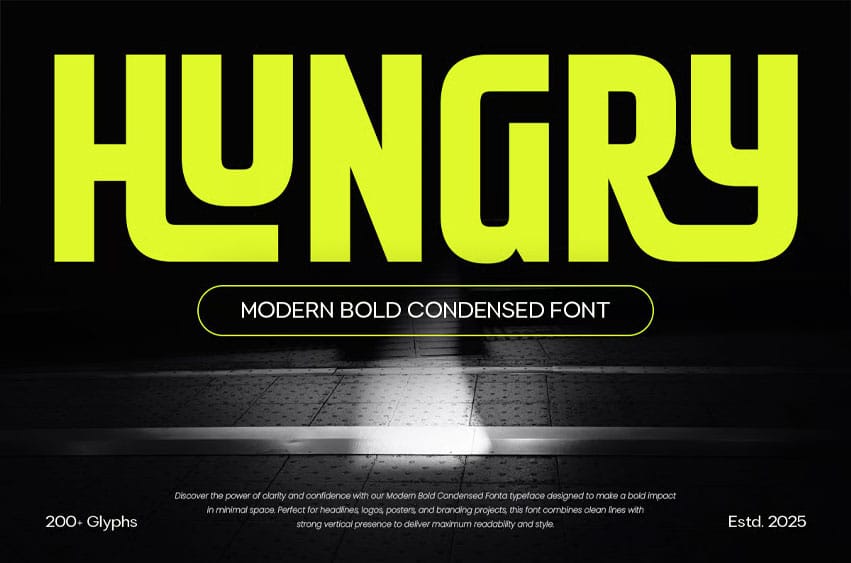
Hungry Font is a modern, bold, condensed font designed to make your designs stand out with strength and clarity. Perfect for logos, branding, posters, headings, and digital products, it delivers a confident and contemporary presence.
With compact letterforms and bold strokes, HUNGRY ensures maximum impact without compromising readability. Its versatile design makes it suitable for a variety of professional and creative applications.
HUNGRY – Modern Bold Condensed Font Features
- Bold and condensed character set
- Ready with Regular and Italic Version
- Perfect for branding, logos, and display purposes
- OpenType features for added versatility
Make a bold statement with HUNGRY – a modern, condensed font built for impact and professional designs.